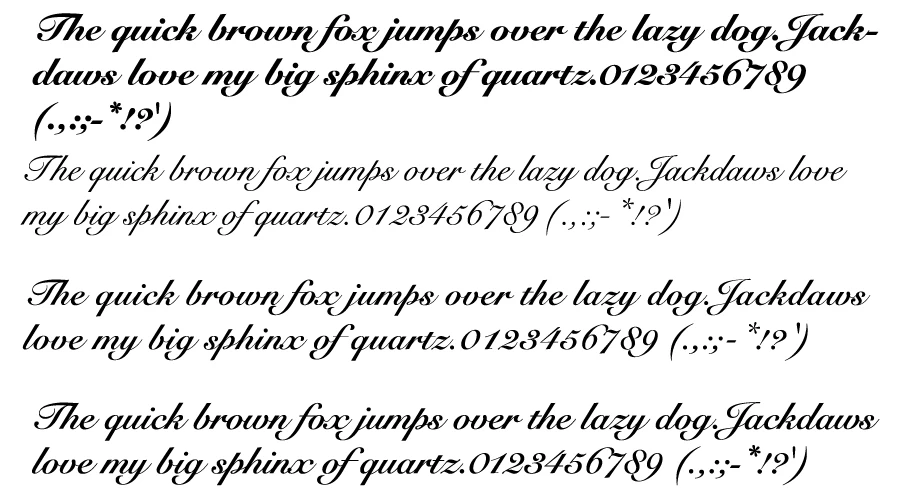
Snell Roundhand Font is a handwritten script typeface designed by Matthew Carter in 1966 and published through Linotype. This connecting script was based on the roundhand script of Charles Snell, a writing master from the 1600s. Carter later expanded on the design by adding two additional weights.
| Name | Snell Roundhand. |
| Style | Handwritten, Script. |
| Designer | Matthew Carter. |
Font Family
- Snell Roundhand Std Regular.
- Snell Roundhand Std Bold.
- Snell Roundhand Std Black.
Similar to Snell Roundhand Font
- Roundhand.
- Anduaga.
- Embassy.
- Glade.
What type of font is Snell Roundhand Font?
Ans: Snell Roundhand Font is a handwritten script typeface designed by Matthew Carter.
Is there any font similar to Snell Roundhand Font in Google Fonts?
Ans: Liu Zhengjiang is the most similar Google font to Snell Roundhand.